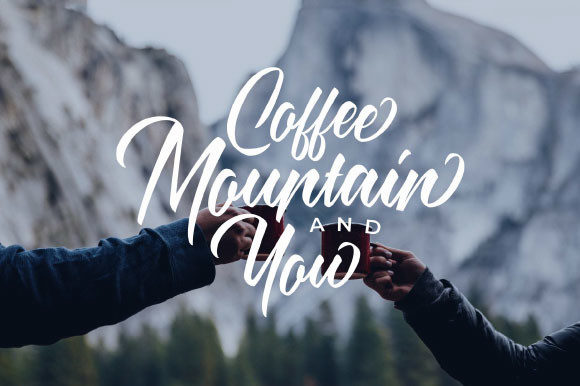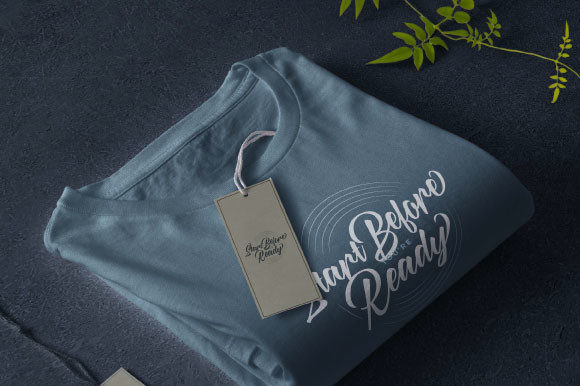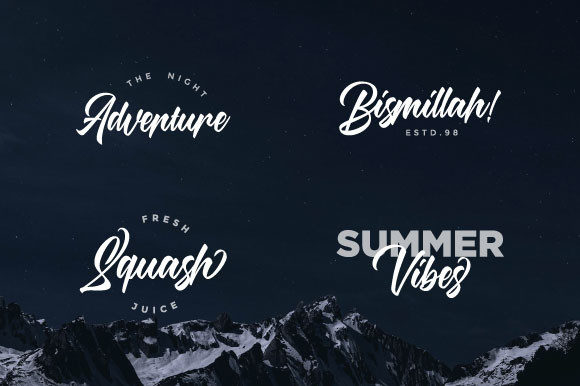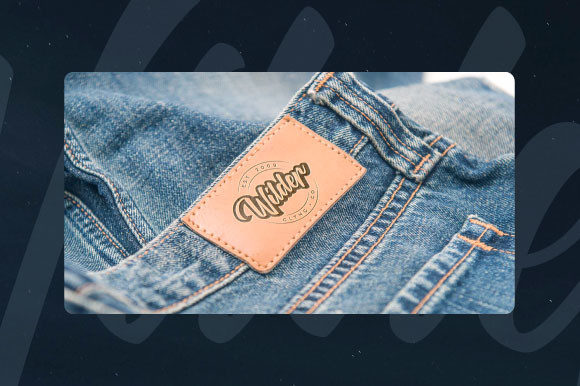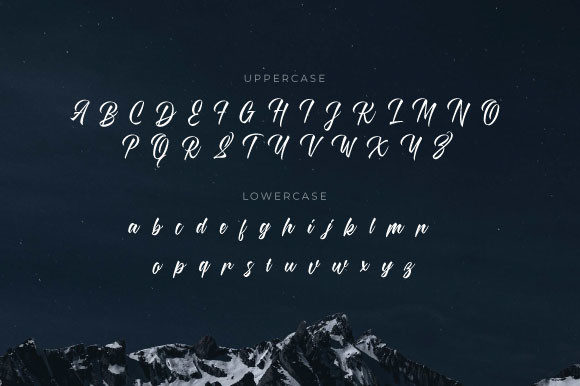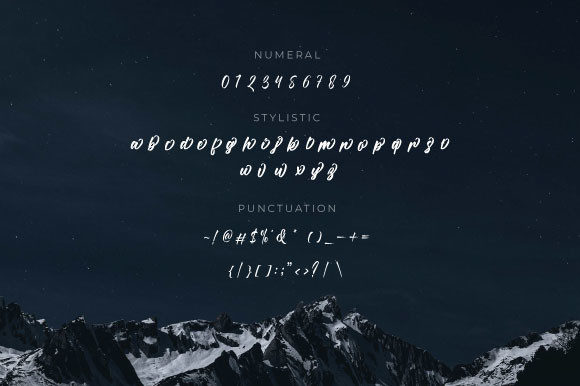
Introducing Chalisan Font: The Perfect Blend of Class and Modernity
Are you tired of using the same old fonts in your designs? Look no further than Chalisan Font, a stunning handwritten font that is sure to become your new favorite. With its exquisite classy calligraphic influences and contemporary feel, Chalisan is the perfect choice for designers and crafters looking to elevate their projects to the highest levels.
The Story Behind Chalisan Font
Chalisan Font is a masterfully designed font that combines traditional calligraphic techniques with modern sensibilities. The result is a font that is both elegant and fresh, making it perfect for a wide range of design applications. Whether you’re working on a branding project, a wedding invitation, or a craft project, Chalisan is sure to impress.
What Makes Chalisan Font So Special?
So, what sets Chalisan Font apart from other fonts on the market? Here are just a few of its standout features:
- Exquisite calligraphic influences: Chalisan Font boasts beautiful, flowing lines that are reminiscent of traditional calligraphy. This gives it a sophisticated, high-end feel that is perfect for luxury brands and high-end designs.
- Contemporary and fresh: Despite its classic influences, Chalisan Font feels modern and contemporary. This makes it perfect for designers who want to create designs that feel current and on-trend.
- Handwritten charm: Chalisan Font has a charming, handwritten quality that makes it feel approachable and personal. This makes it perfect for designs that require a more human touch.
How to Use Chalisan Font in Your Designs
Chalisan Font is incredibly versatile, making it perfect for a wide range of design applications. Here are just a few ideas to get you started:
- Branding and logos: Chalisan Font is perfect for creating luxury brand identities, logos, and letterheads.
- Wedding and event invitations: Add a touch of elegance to your wedding or event invitations with Chalisan Font.
- Craft projects: Chalisan Font is perfect for crafters who want to add a personal touch to their projects, such as scrapbooking, card making, and journaling.
- Digital designs: Use Chalisan Font in your digital designs, such as social media graphics, blog posts, and email marketing campaigns.
Tips for Getting the Most Out of Chalisan Font
Here are a few tips for getting the most out of Chalisan Font:
- Experiment with different sizes and colors: Chalisan Font looks great in a variety of sizes and colors, so don’t be afraid to experiment and find the perfect combination for your design.
- Pair it with other fonts: Chalisan Font pairs beautifully with other fonts, so try combining it with a sans-serif font for added contrast.
- Use it consistently: Use Chalisan Font consistently throughout your design to create a cohesive, professional look.
In conclusion, Chalisan Font is a truly exceptional font that is sure to become a favorite among designers and crafters. With its exquisite calligraphic influences, contemporary feel, and handwritten charm, Chalisan is the perfect choice for anyone looking to elevate their designs to the highest levels. So why wait? Fall in love with Chalisan Font today and start creating stunning designs that will leave a lasting impression!